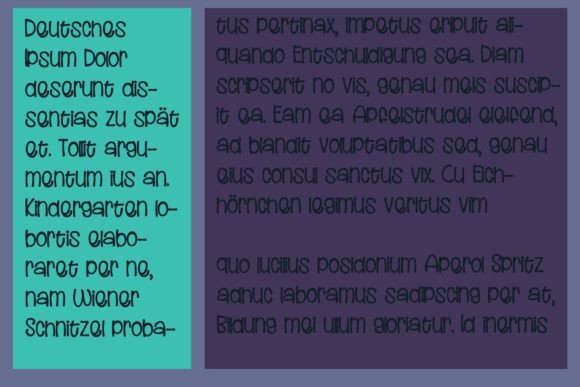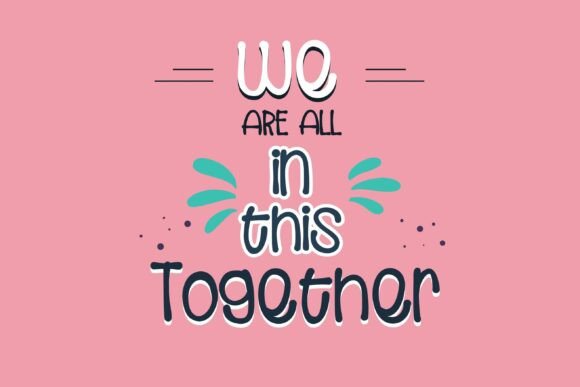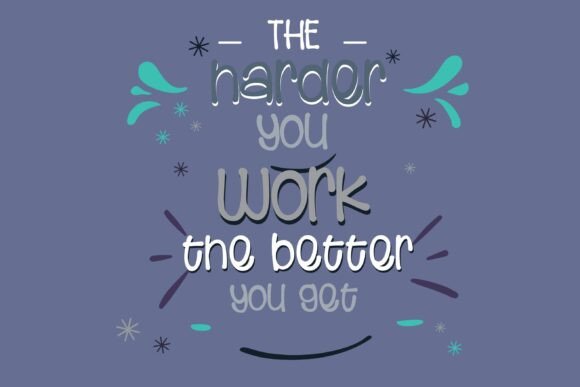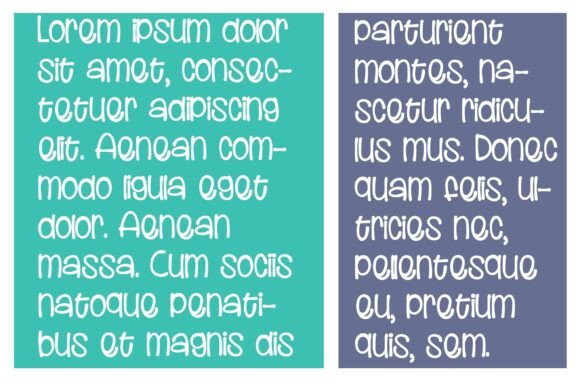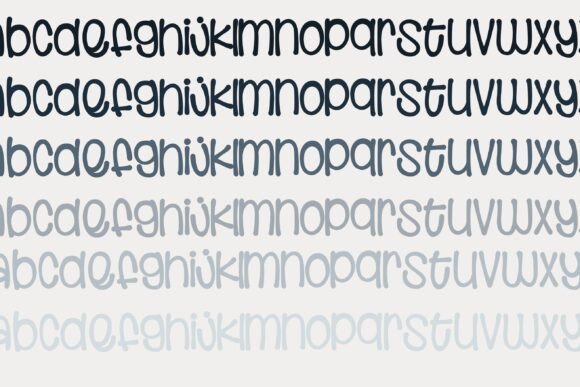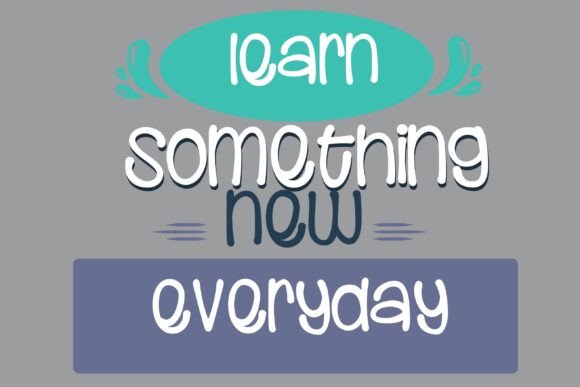
Atingle Font: A Whimsical Hand-Written Print for Designers and Crafters
Are you looking for a unique and playful font to add a personal touch to your designs? Look no further than Atingle Font, a hand-crafted, whimsical hand-written print with no descenders. This charming font is perfect for designers and crafters who want to add a touch of personality to their work. In this article, we’ll take a closer look at Atingle Font, its features, and how you can use it to elevate your designs.
What is Atingle Font?
Atingle Font is a hand-crafted font that is designed to look like it was written by hand. It’s a whimsical hand-written print with no descenders, giving it a playful and carefree feel. The font is perfect for creating invitations, greeting cards, and other items that require a personal touch. With its unique and quirky design, Atingle Font is sure to stand out from more traditional fonts.
Features of Atingle Font
Atingle Font comes with several features that make it a versatile and practical choice for designers and crafters. Some of its key features include:
- Hand-crafted design: Atingle Font is designed to look like it was written by hand, giving it a unique and personal touch.
- Whimsical hand-written print: The font has a playful and carefree feel, making it perfect for creating invitations, greeting cards, and other items.
- No descenders: The font has no descenders, giving it a clean and simple look.
- Light version included: Atingle Font comes with a light version, allowing you to create subtle and elegant designs.
A hand-crafted font is a font that is designed to look like it was written by hand. It’s often used for invitations, greeting cards, and other items that require a personal touch. Handwritten fonts can be either formal or informal, and they can be used for a variety of purposes. Hand-crafted fonts are perfect for designers and crafters who want to add a touch of personality to their work.
Uses of Atingle Font
Atingle Font is a versatile font that can be used for a variety of purposes. Some of its common uses include:
- Invitations: Atingle Font is perfect for creating invitations for parties, weddings, and other special events.
- Greeting cards: The font is great for creating greeting cards for birthdays, holidays, and other occasions.
- Stationery: Atingle Font can be used to create custom stationery, including letterheads, notebooks, and journals.
- Digital designs: The font can be used for digital designs, including social media graphics, blog posts, and website headers.
Tips for Using Atingle Font
Here are some tips for using Atingle Font in your designs:
- Pair with other fonts: Atingle Font can be paired with other fonts to create a unique and interesting design.
- Use for headings: The font is perfect for headings and titles, adding a touch of personality to your designs.
- Experiment with colors: Atingle Font can be used with a variety of colors to create a unique and eye-catching design.
Atingle Font is a unique and playful font that is perfect for designers and crafters who want to add a personal touch to their work. With its hand-crafted design, whimsical hand-written print, and no descenders, Atingle Font is sure to stand out from more traditional fonts. Whether you’re creating invitations, greeting cards, or digital designs, Atingle Font is a versatile font that can be used for a variety of purposes. So why not give it a try and see how it can elevate your designs?